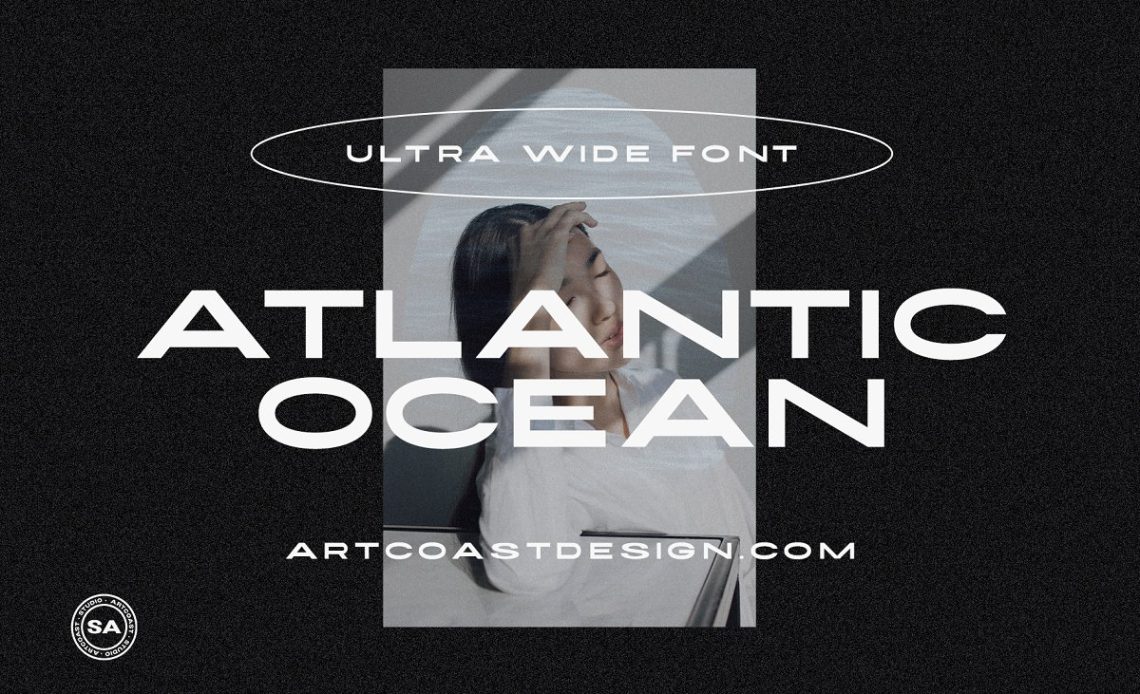
Looking for a stylish new font to add to your design repertoire? Say hello to “SA Atlantic Ocean”! This extra wide sans serif font is perfect for creating chic and sophisticated designs. Whether you’re working on a fashion magazine layout, designing a new logo or branding collateral, or crafting invitations or quotes, “SA Atlantic Ocean” will give your project that touch of elegance. With its clean lines and timeless appeal, this font is sure to become a favorite!